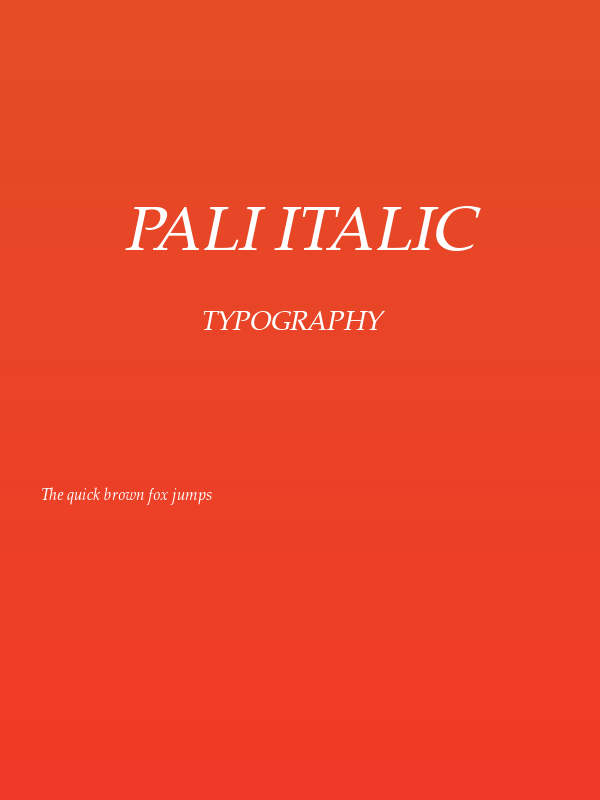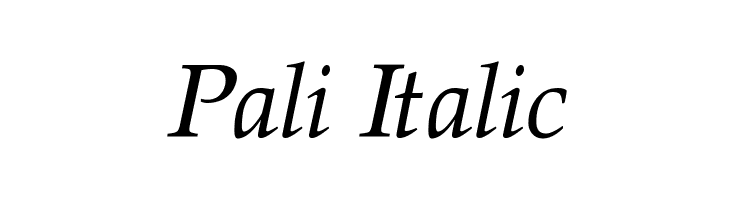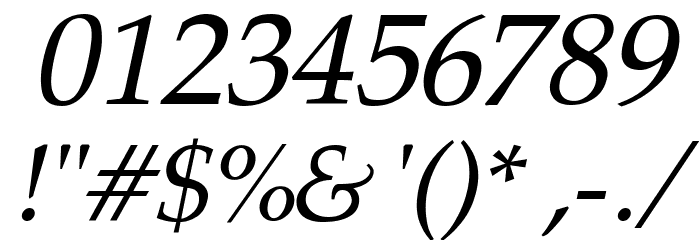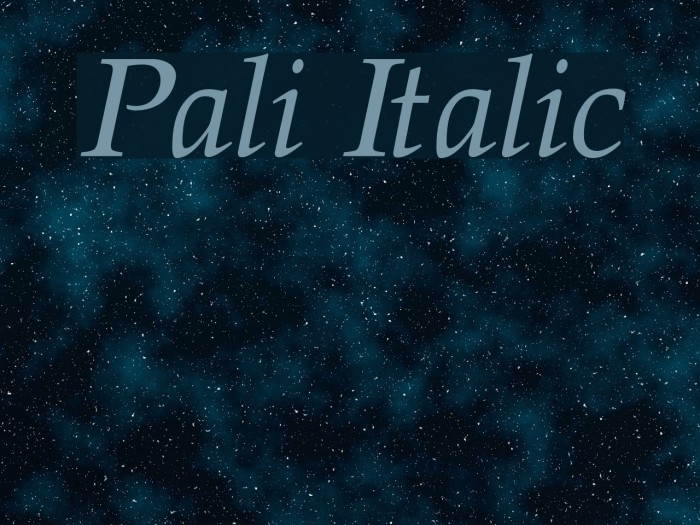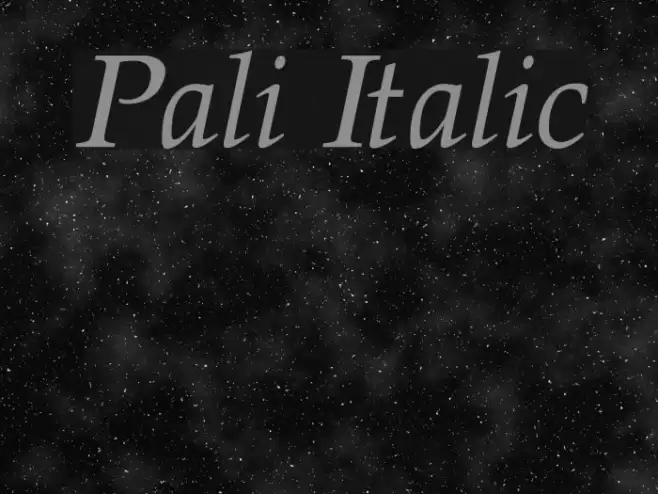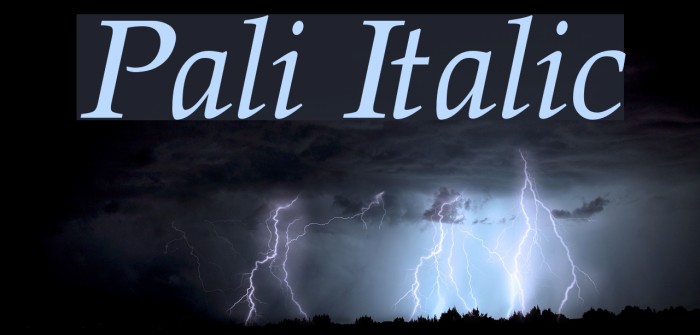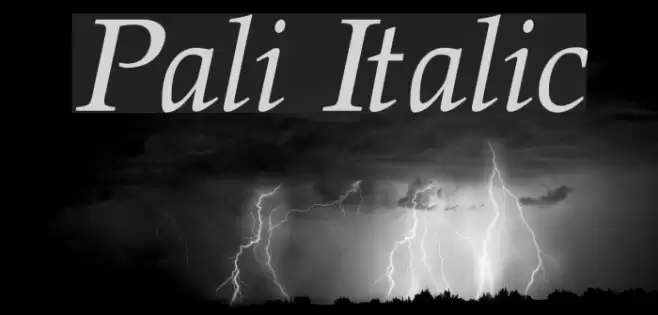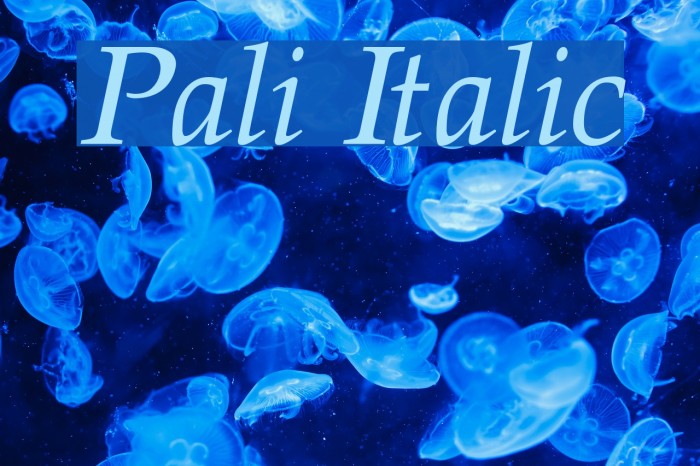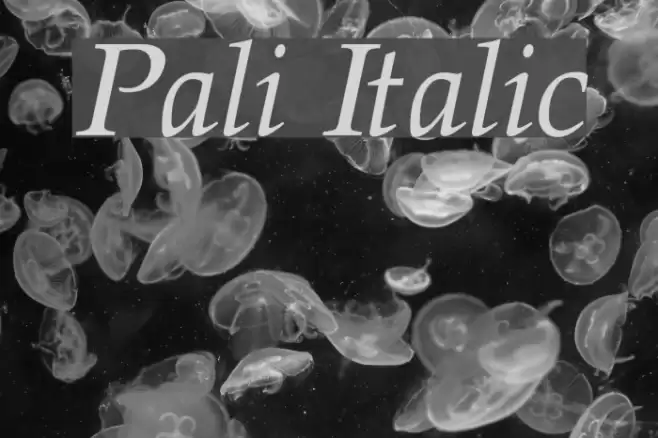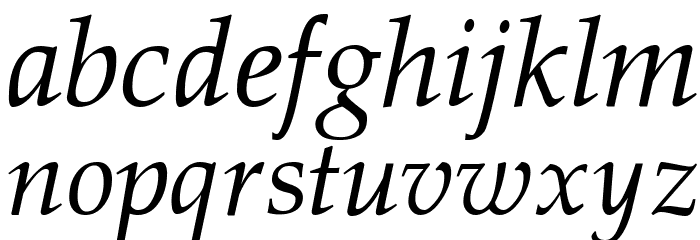
Pali Italic Font
Pali Italic Description
This elegant serif font features a classic italic style, characterized by its smooth, flowing lines and slightly slanted characters. The uppercase letters are well-proportioned, with a refined and sophisticated appearance. The lowercase letters maintain a consistent slant, enhancing the font's graceful aesthetic. The numerals are clear and distinct, complementing the overall design. Special characters are thoughtfully crafted, ensuring versatility in various applications. The font's high contrast between thick and thin strokes adds to its timeless appeal, making it suitable for formal and elegant design projects.
| Overall Style | Classic |
| Use Case | Headlines, Body text, Logos |
| Proposed Projects | Ideal for wedding invitations, luxury branding, editorial design, and elegant packaging. |